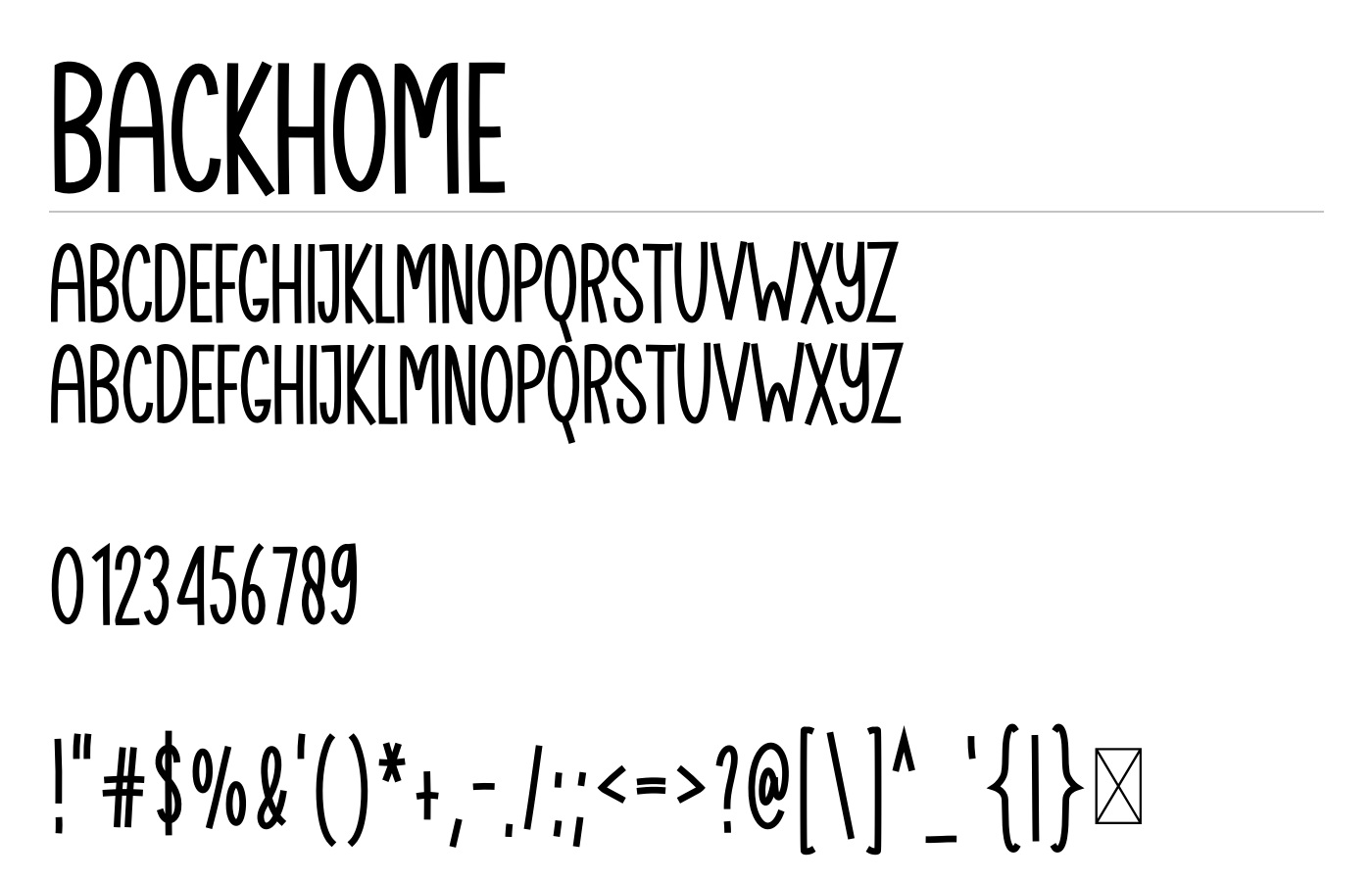
Backhome is a tall, narrow sans serif font with a playful and quirky character, featuring uneven stroke widths and slightly irregular letter shapes that add a hand-drawn feel. Its condensed form and informal style make it perfect for creative headlines, posters, or branding that aims to convey a friendly, approachable, and unique personality. This font works well in contexts where a casual yet distinctive look is desired to grab attention and express individuality.
Backhome Font